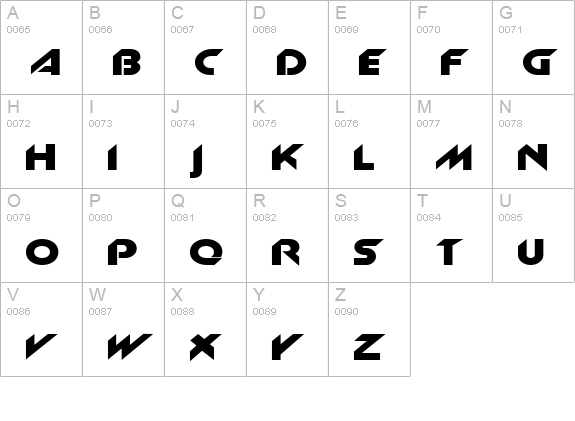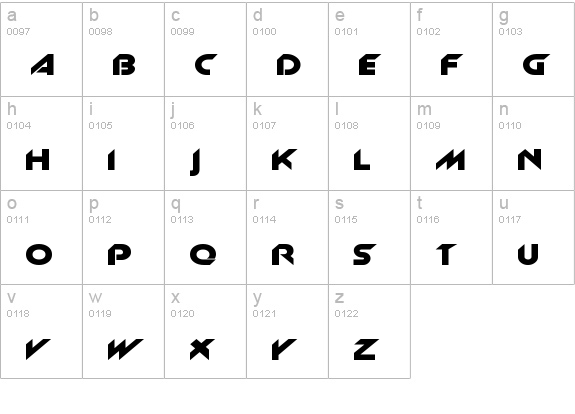
MachineExtended Normal Font Details
MachineExtended Normal is the standard, neutral variant in the MachineExtended typeface family \xE2\x80\x94 well suited to general body text, paragraphs, and standard typographic work.
MachineExtended Normal is a versatile and modern font that offers a perfect blend of sophistication and simplicity. With its clean lines and balanced proportions, this font is ideal for a wide range of design projects, from professional branding to creative typography. The smooth curves and sharp edges of MachineExtended Normal create a sense of elegance and professionalism, making it suitable for both digital and print applications. Whether you're designing a logo, creating a website, or crafting a poster, this font will add a touch of refinement and style to your work. One of the best features of MachineExtended Normal is that it is freely available to download at FontsMarket.com. This means that you can easily access and use this font without any cost or restrictions. Designed with accessibility in mind, this font ensures that everyone can enjoy its beauty and functionality. The legibility of MachineExtended Normal is exceptional, making it easy to read even at small sizes. Its generous spacing and clear letterforms ensure that every word is crystal clear, enhancing the overall readability of your designs. Additionally, the extensive character set of this font includes all the necessary punctuation marks, symbols, and accents, allowing you to create content in multiple languages. Whether you're a professional designer or a casual enthusiast, MachineExtended Normal is a valuable addition to your font library. Its versatility, elegance, and free availability make it a must-have for any design project. Download MachineExtended Normal today from FontsMarket.com and elevate your designs to new heights of creativity and professionalism.